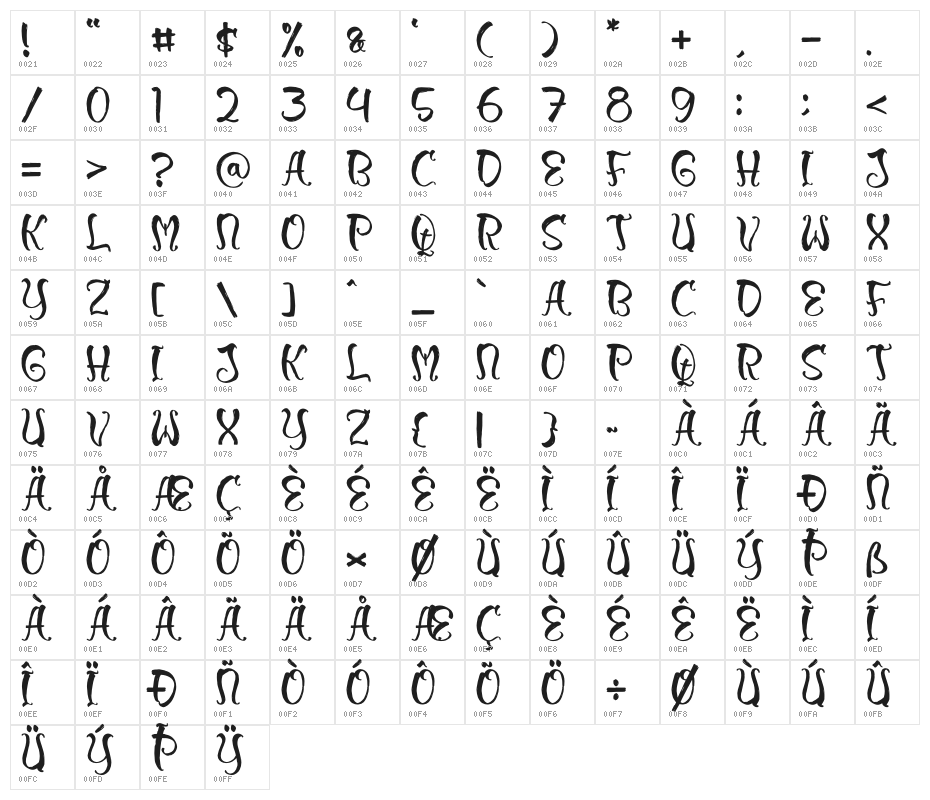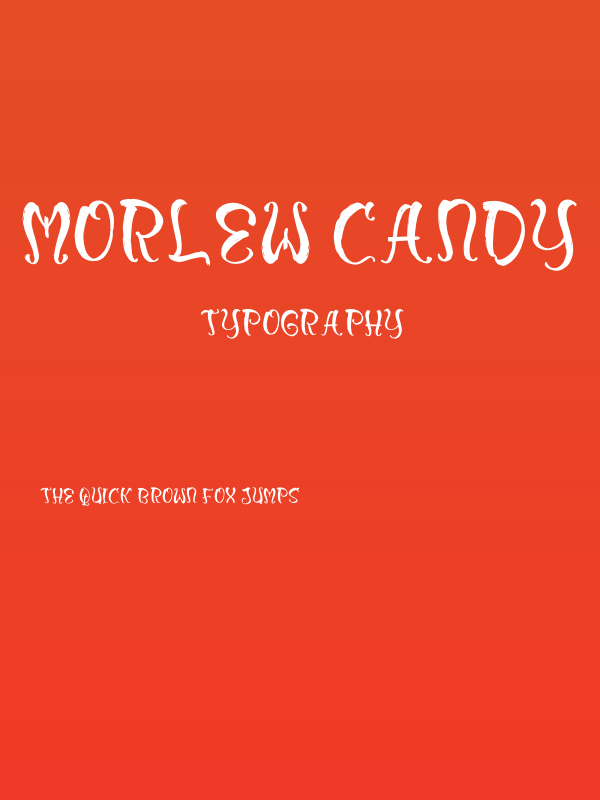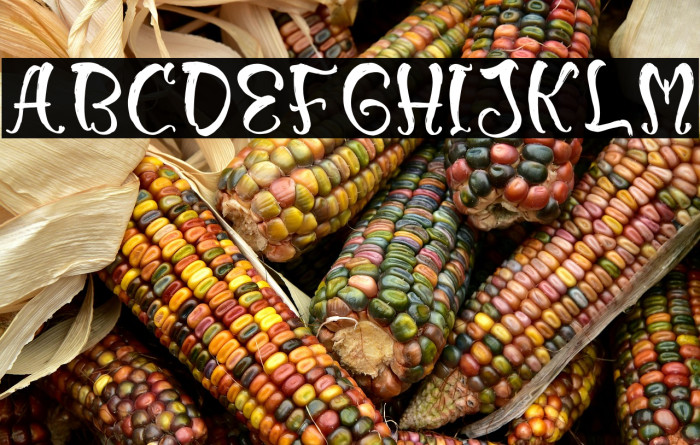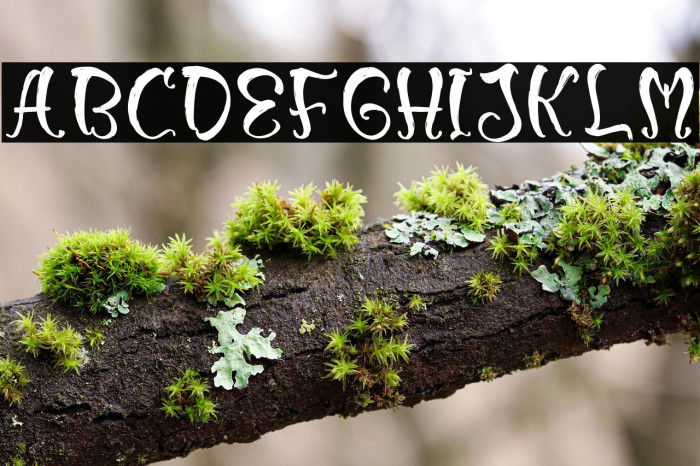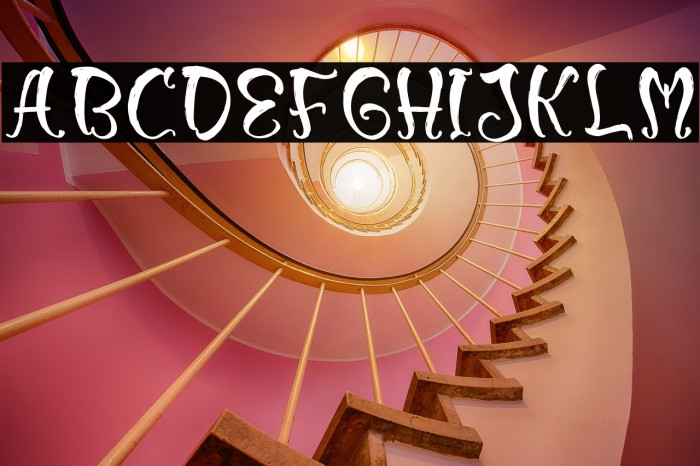
Morlew Candy Font
Fonts by Letterena Studios
| Vorgeschlagene Projekte | Ideal for creative projects such as posters, invitations, and branding materials that require a lively and artistic touch. |